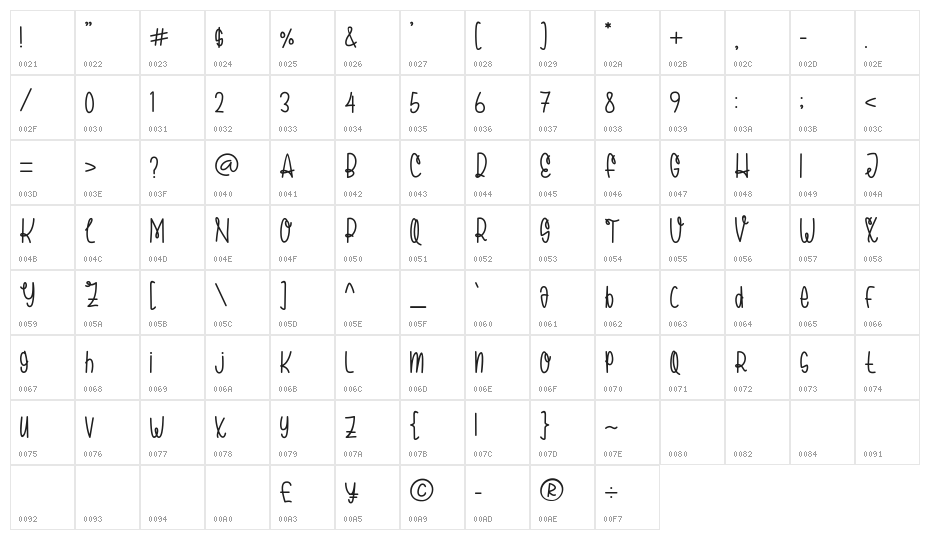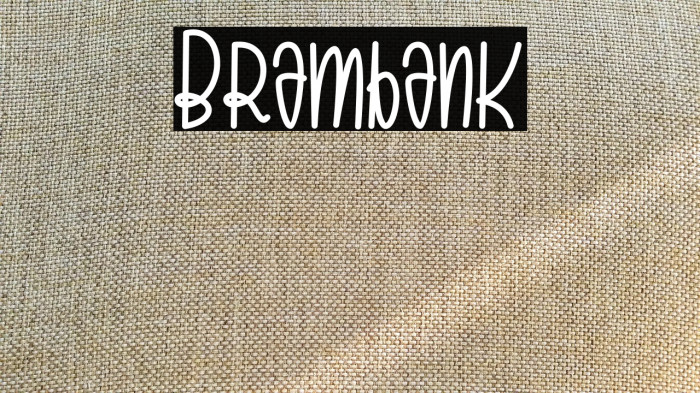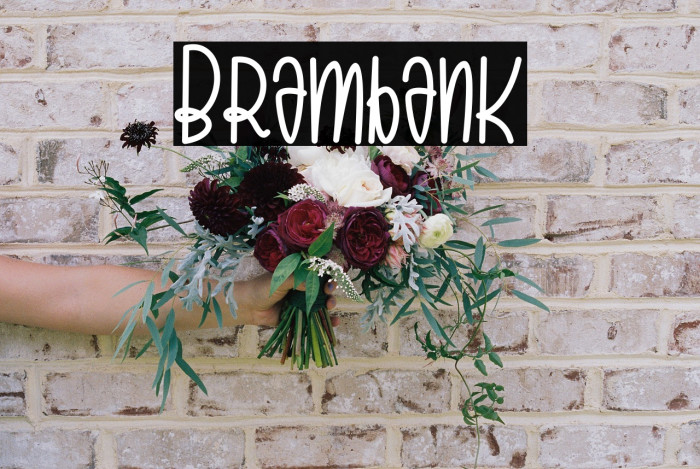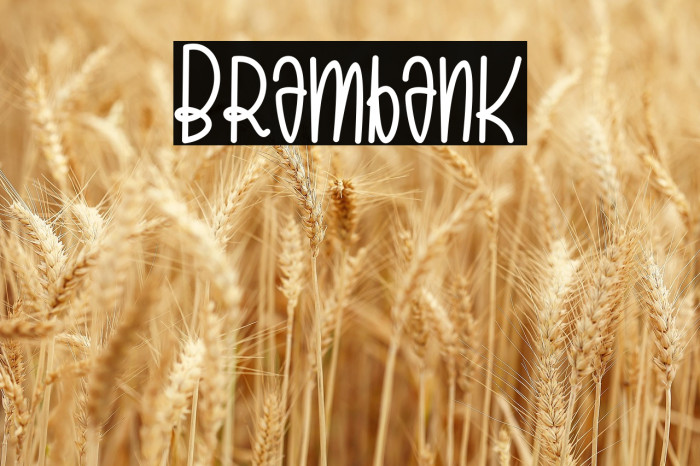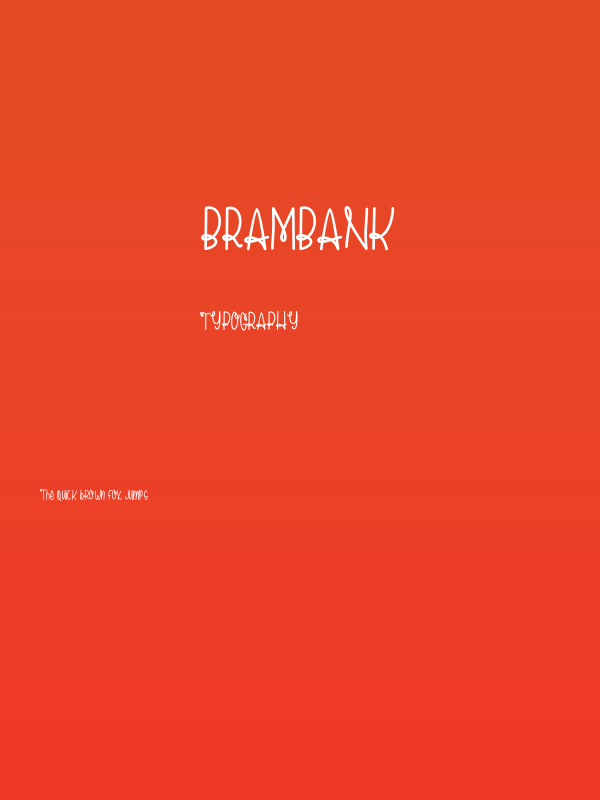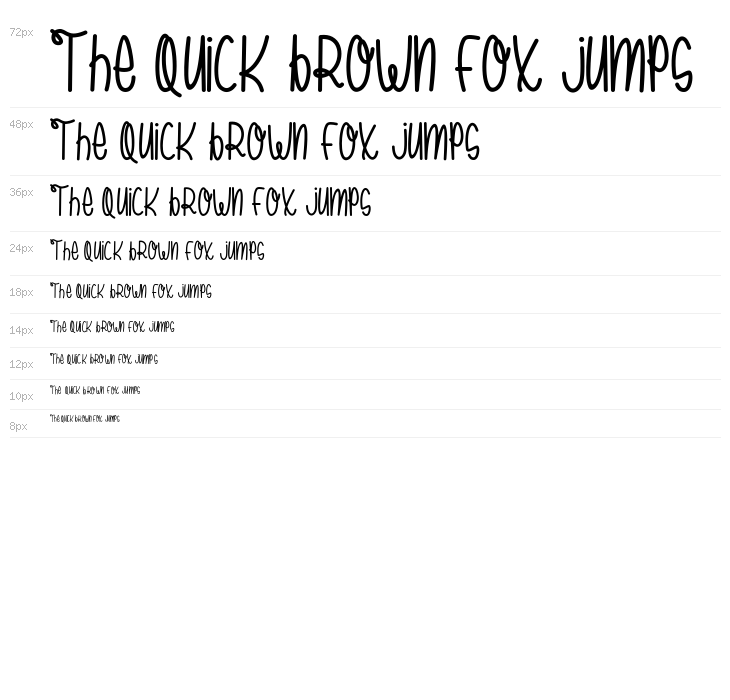
Brambank Font
Brambank Description
This playful and whimsical font features a handwritten style with a unique twist. Each character is crafted with a sense of fun, incorporating loops and curls that add a lively personality. The uppercase letters stand tall with a consistent height, while the lowercase letters maintain a balanced proportion, making the text easy to read despite its decorative nature. The numbers and special characters follow the same playful design, ensuring a cohesive look across all text elements. This font's distinctive style makes it ideal for projects that require a touch of creativity and flair.
| Proposed Projects | Ideal for children's books, greeting cards, playful branding, and creative posters. |